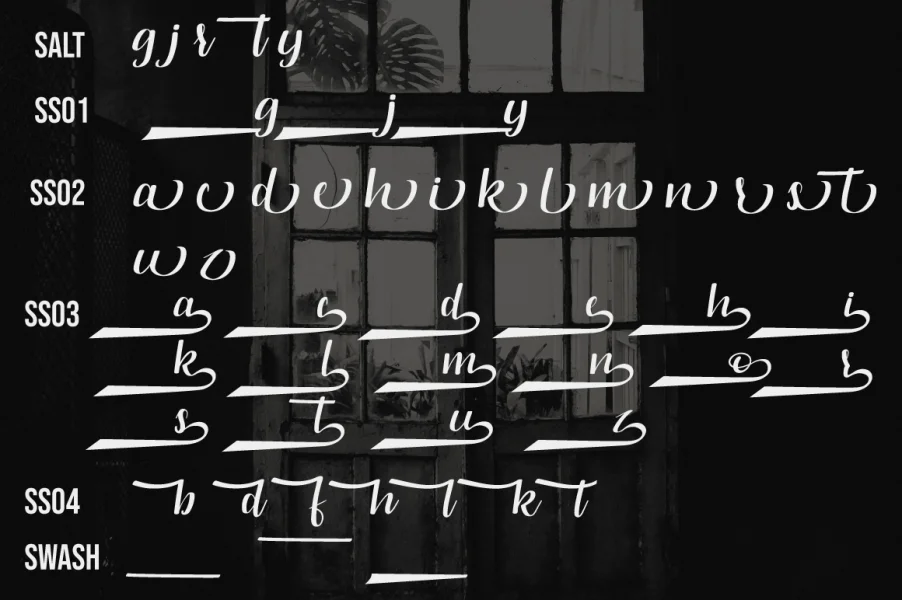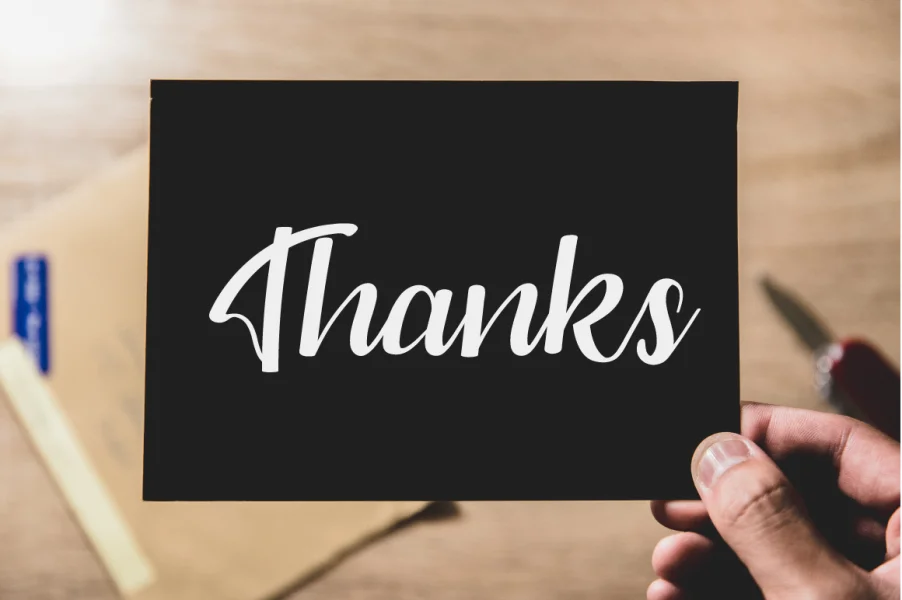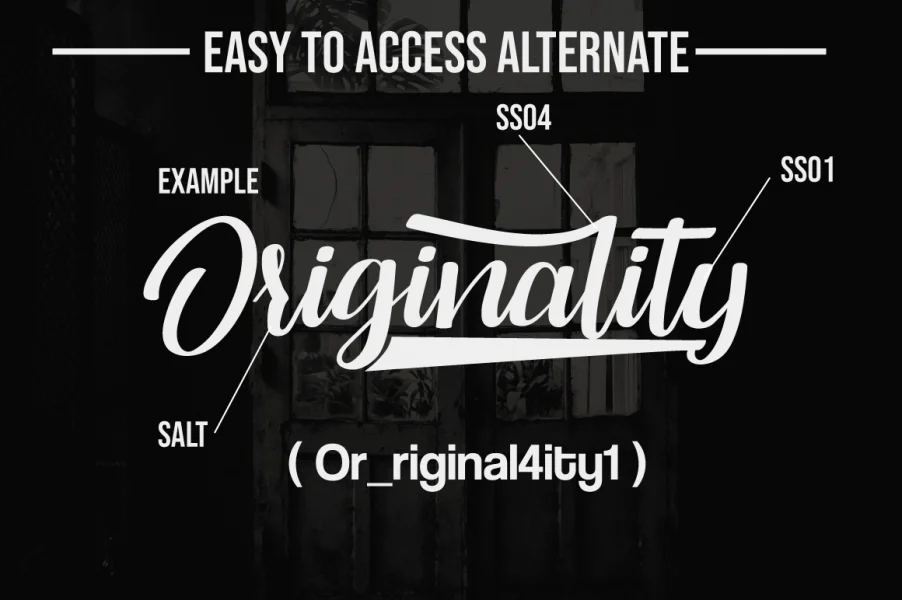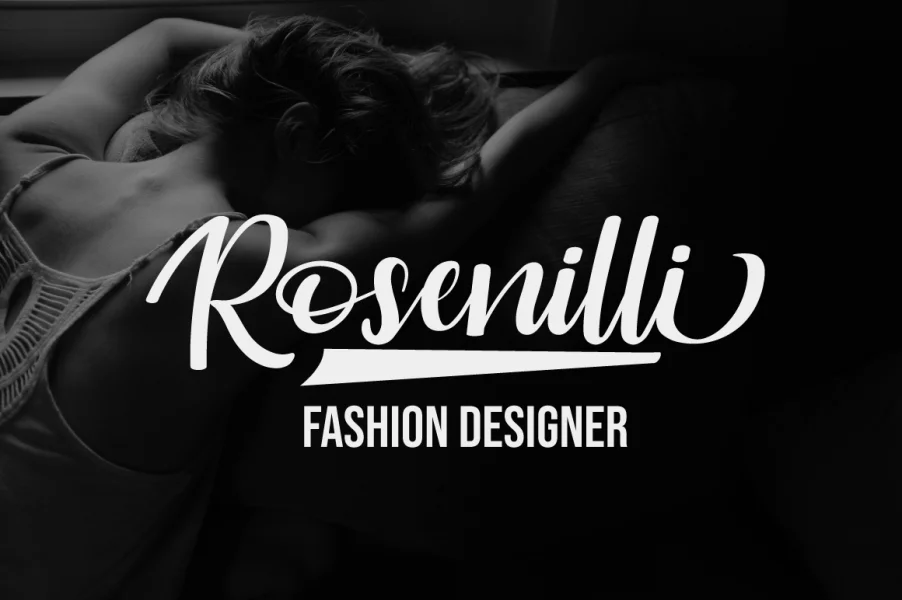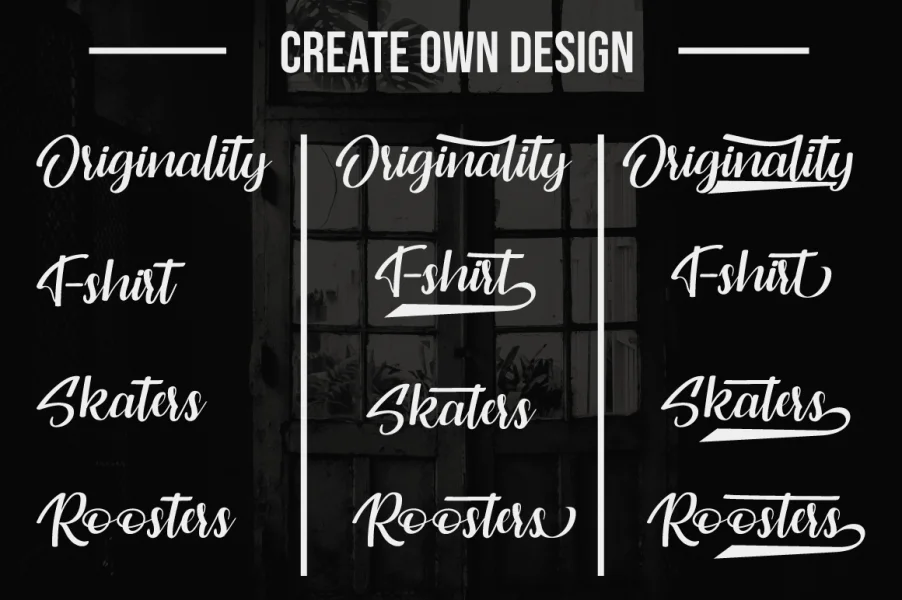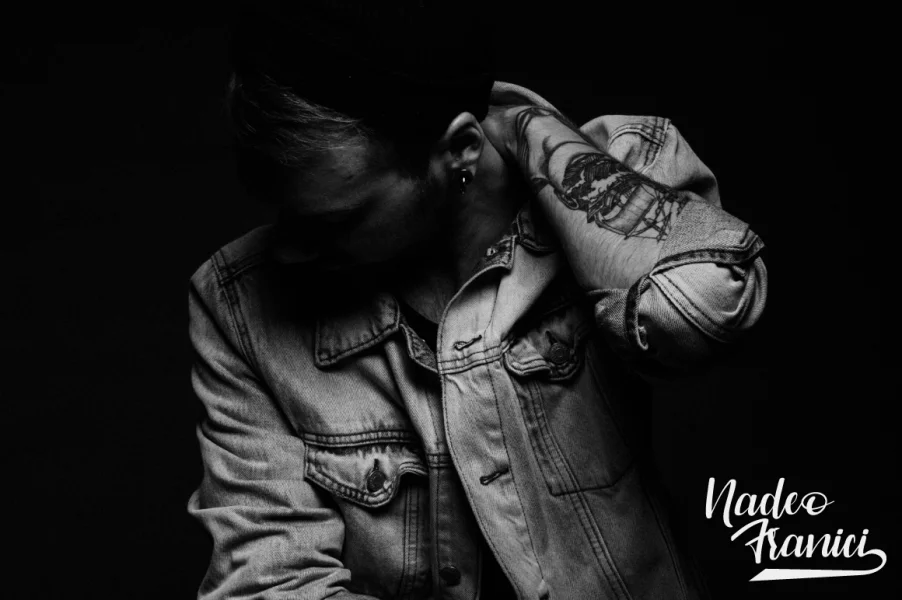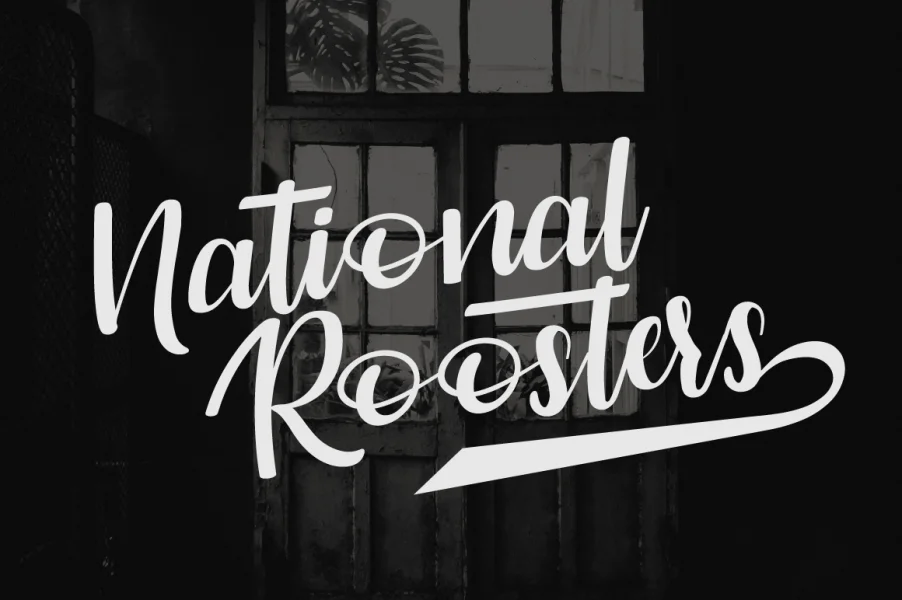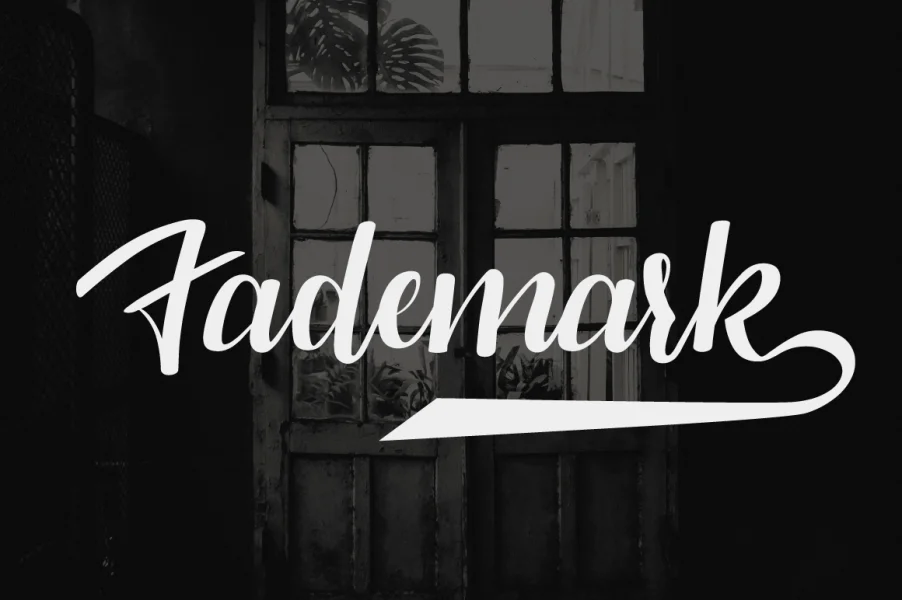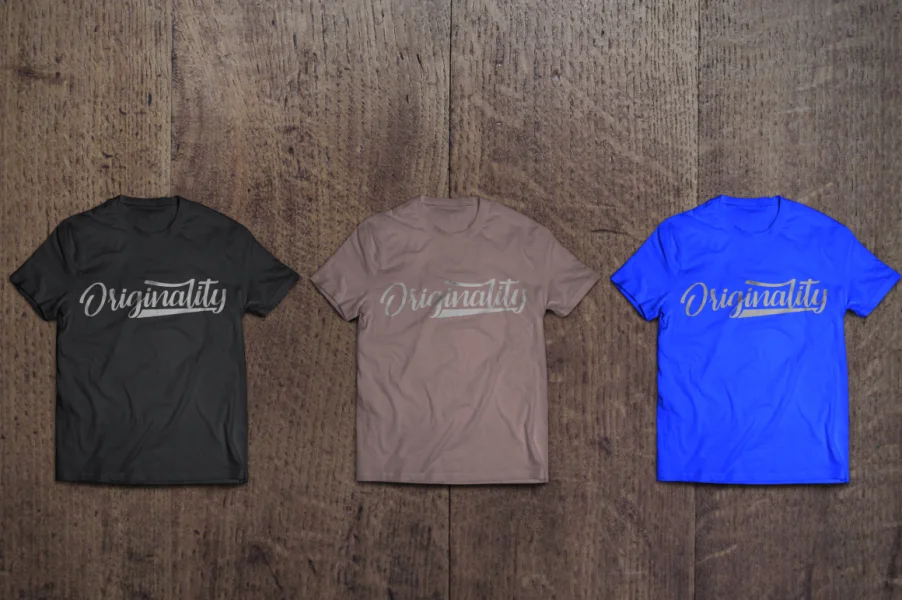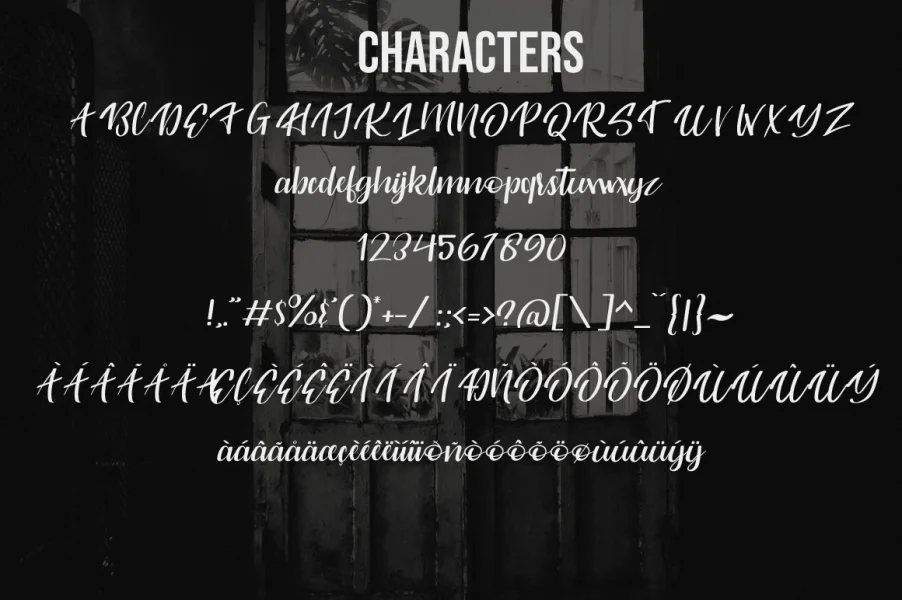
Say Hello ! to "Originality Script Font" , The Originality is an modern handwritten script font. Very easy to access alternate . which is perfect for flyer,invitations, advertisements, banners, books, business cards, signatures, and others who want a bold script font font type.